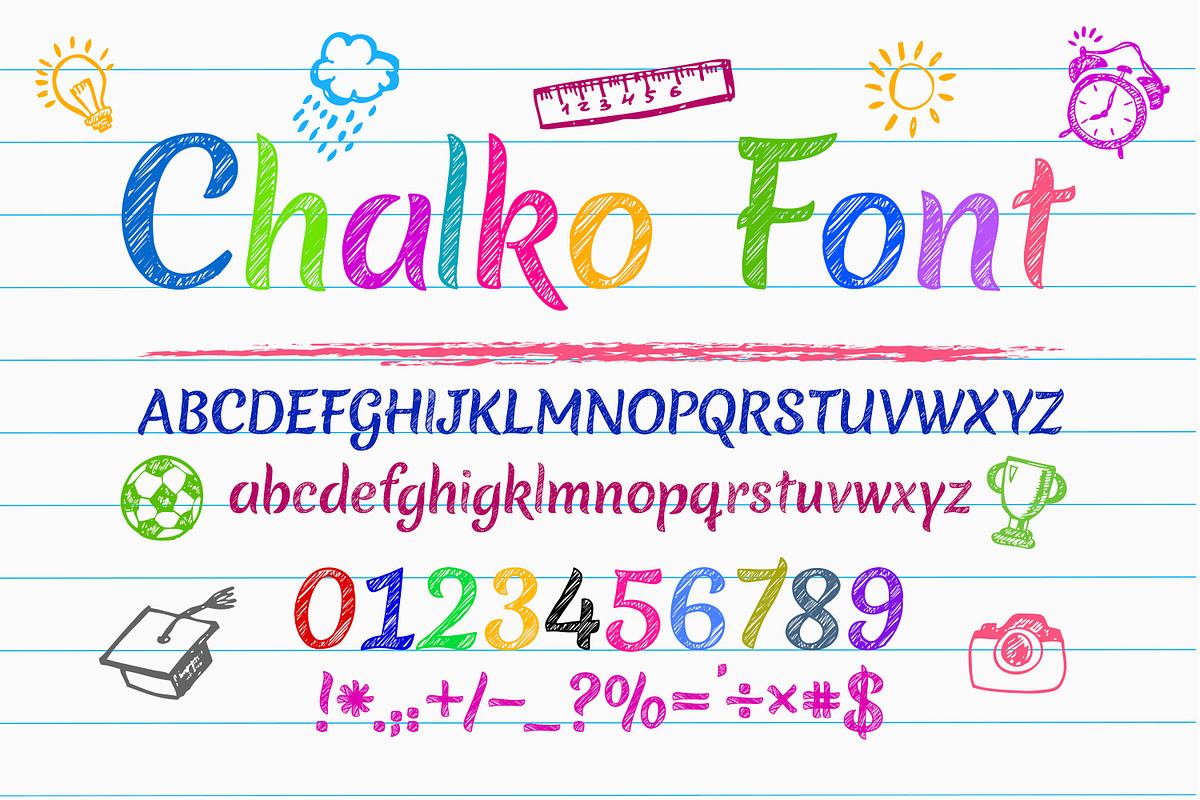
Chalko Font Free Download is a fun and textured typeface that mimics the authentic look of chalk on a blackboard. Perfect for school-themed designs, café menus, signage, or playful branding, this font adds a nostalgic, hand-drawn charm to any creative project.
Its rough edges and handwritten feel give it a warm and approachable personality—great for both kids' content and trendy vintage designs. Whether you're crafting a classroom poster, designing a bakery label, or creating social media content with a casual vibe, Chalko fits the mood perfectly.
Designers love Chalko for its versatility and texture, bringing a handmade look to digital layouts. Ready to add that chalkboard magic to your next idea? Download Chalko Font Free Download and let your creativity write outside the lines.